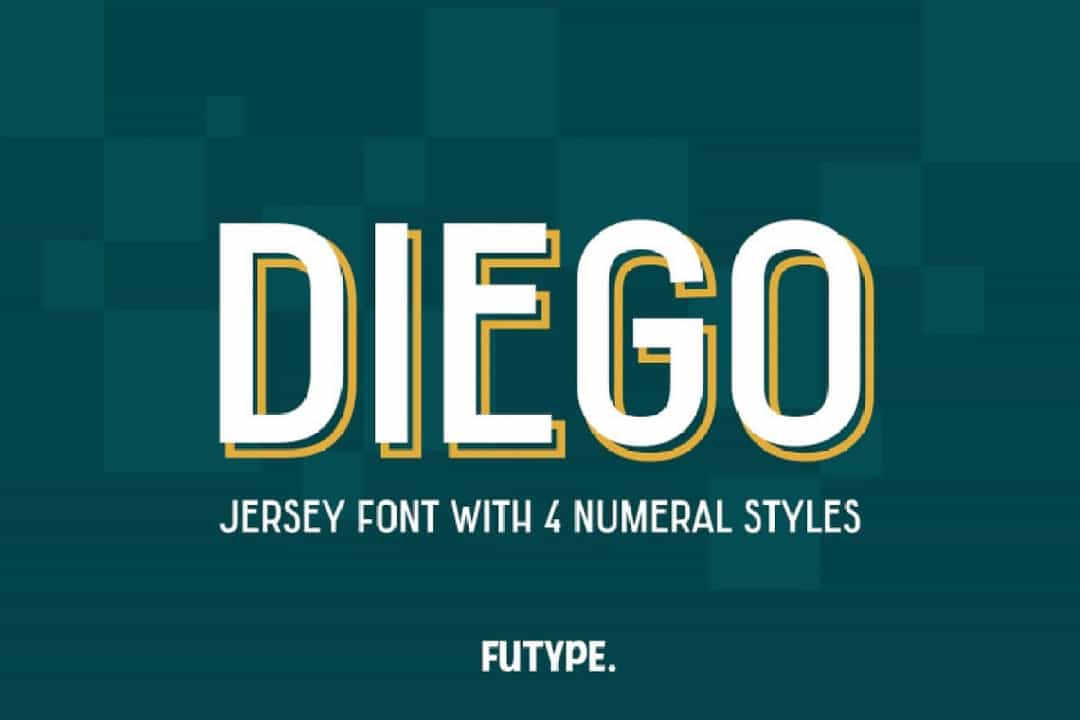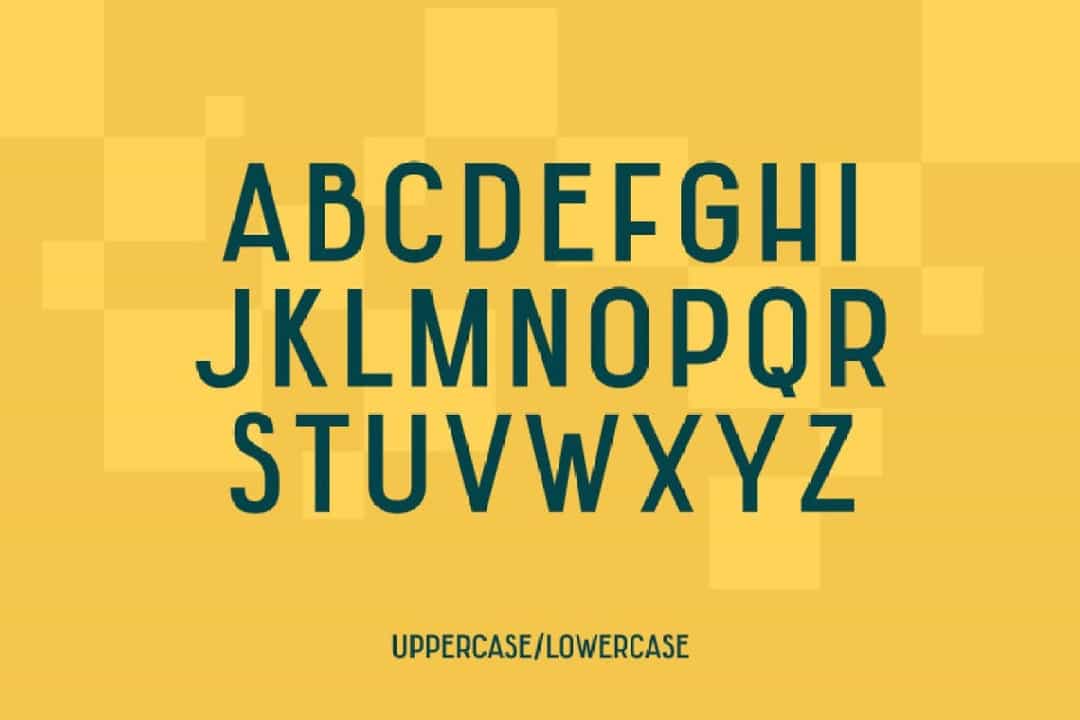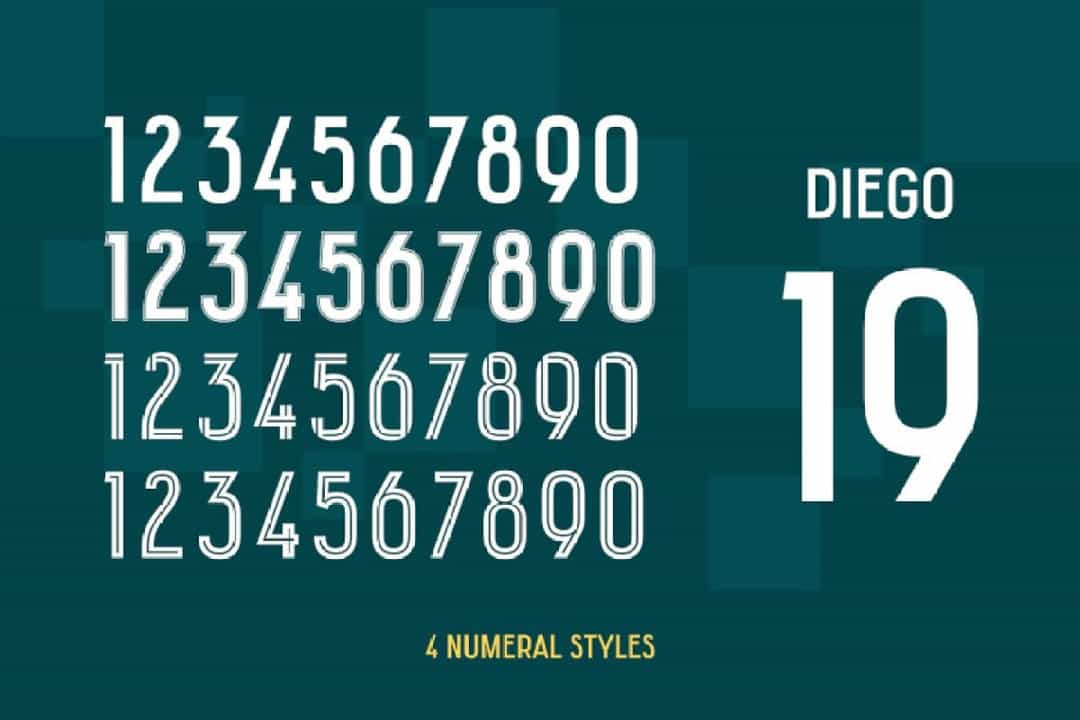
Diego is a typeface designed specifically for soccer, football and other team-sport team names and numbers. There are four styles of numerals you can select to represent your team’s identity. Multilingual and standard punctuation characters are included with Diego. Although designed specifically for sports use, Diego also serves other purposes.